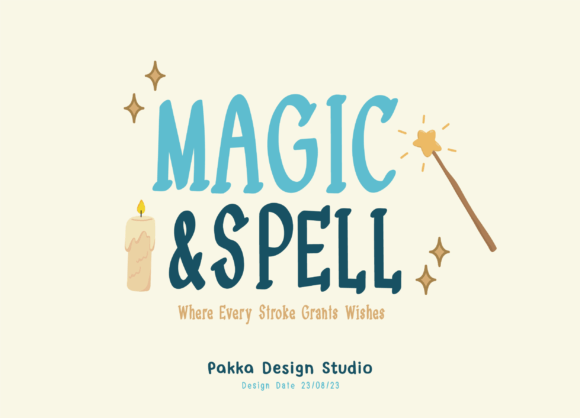
Magic and Spell Font
Font Name : Magic and Spell Font
Author : Pakka Design Studio
In a realm of boundless imagination, where the written word weaves spells of wonder, the "Magic and Spell" font family emerges as a captivating creation. With every letter, it casts an enchanting aura, transporting you to a world of magical adventures and mystical realms.
Journey into the realms of fantasy and folklore with this font, reminiscent of ancient wizards' tomes and fantastical worlds. Its whimsical and captivating design brings to life a symphony of visual magic, transforming your designs into a tapestry of enchantment.
Let your imagination run wild, and let this font become your creative wand, casting spells of captivating storytelling and enchanting artistry. Embrace the spirit of spellbinding innovation and wondrous journeys, invoking the magical allure of dreams and aspirations.
Immerse yourself in the enchanting tapestry of "Magic and Spell" and let your creativity soar to new heights. It's the perfect font for projects that aim to ignite the imagination, captivate audiences, and create an enchanting ambiance.
With its enchanting authenticity, this font adds a touch of magic to your designs, making them irresistible to those who seek a world of wonder and enchantment. It's a delightful choice for projects related to children's literature, fantasy novels, imaginative branding, and anything that conjures the mystical allure of spells and dreams.
Discover the magic within your words and embark on a journey of captivating creativity with the "Magic and Spell" font family. Let your imagination run wild and weave a spellbinding tapestry of visual enchantment.